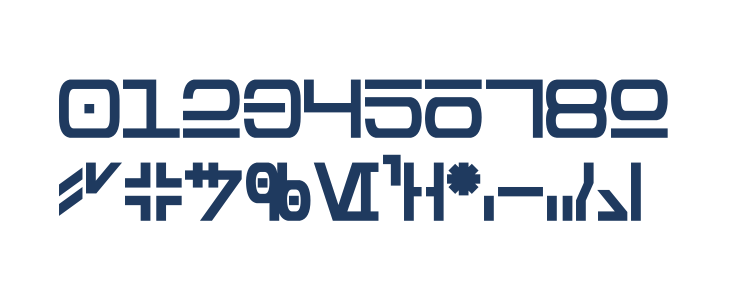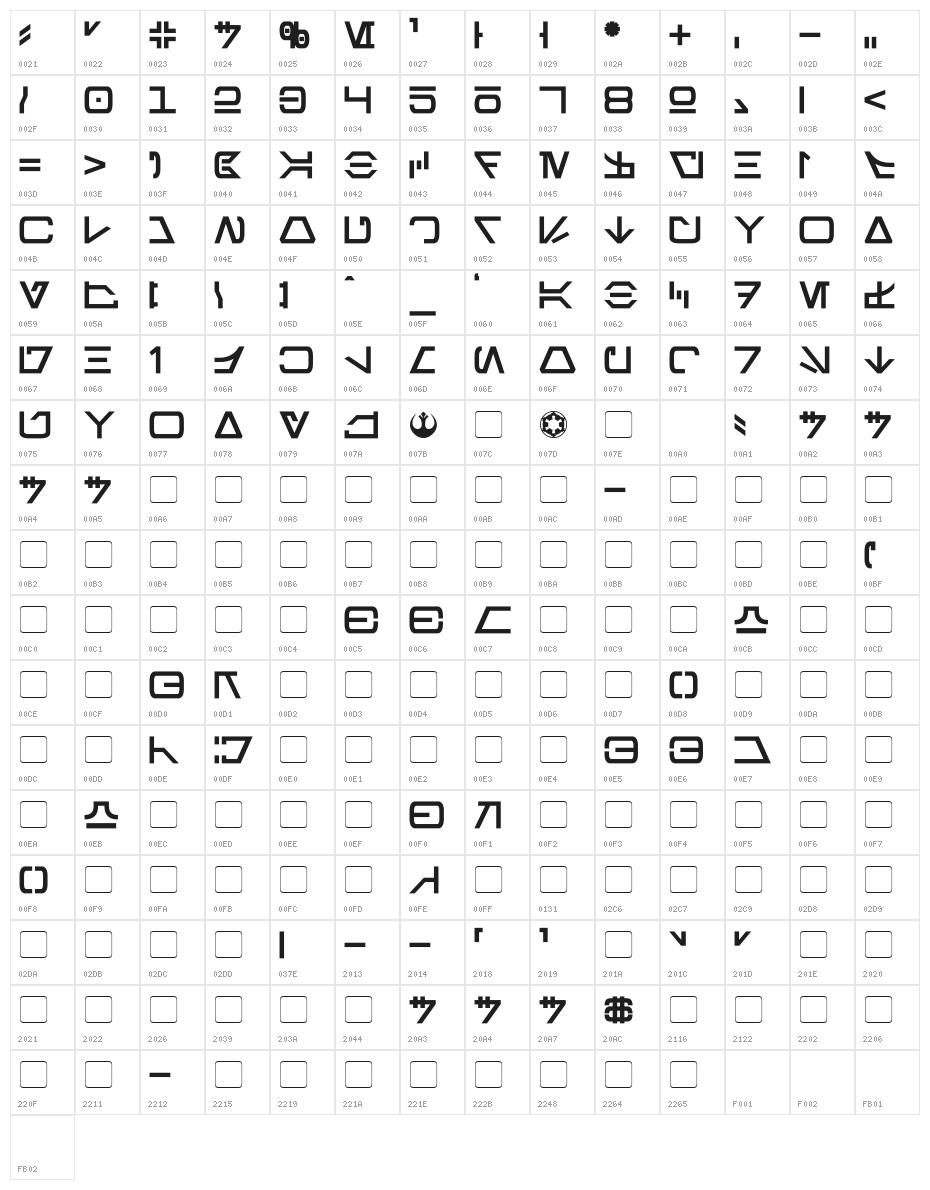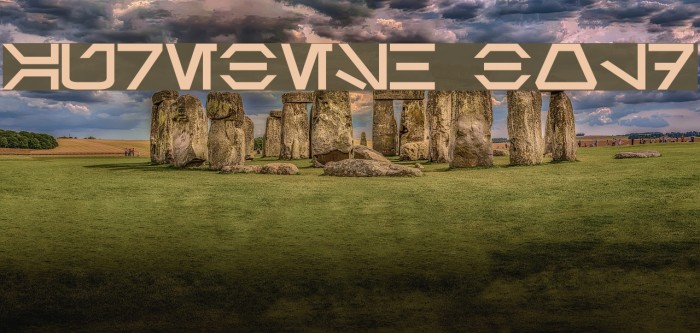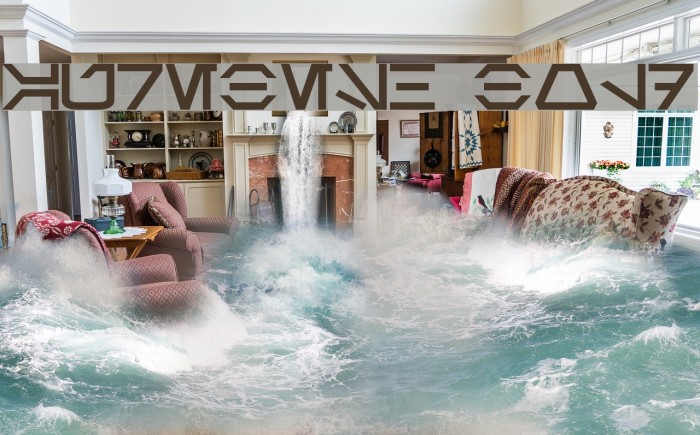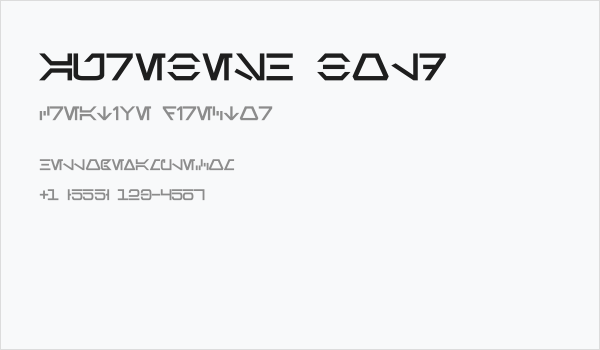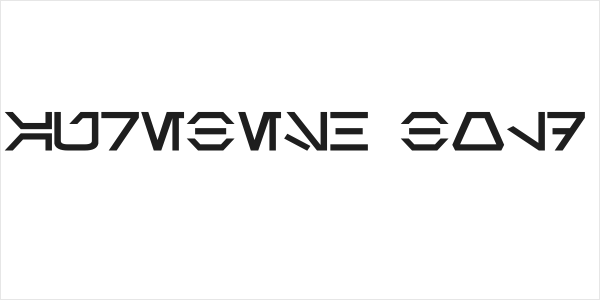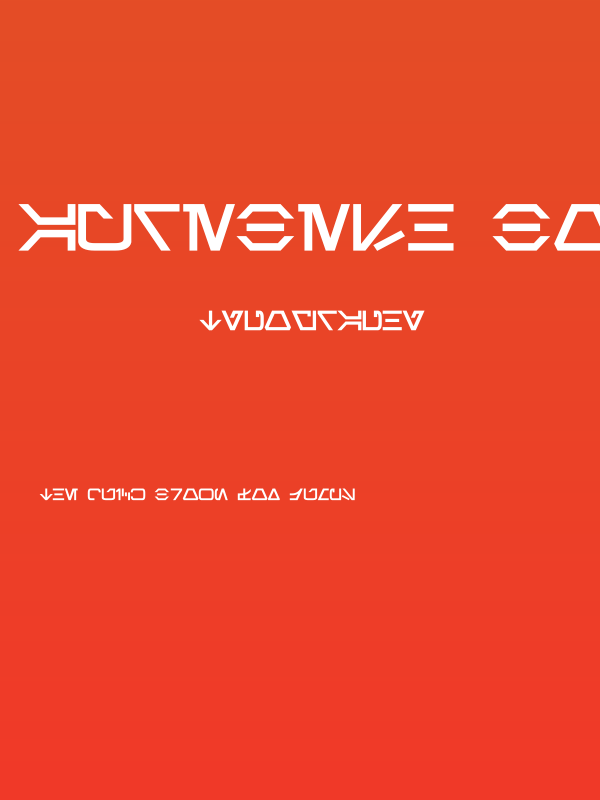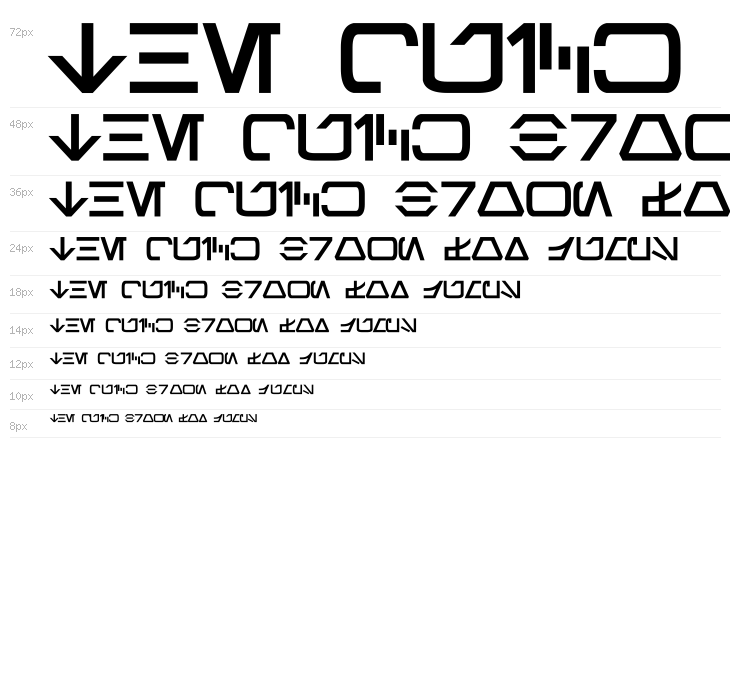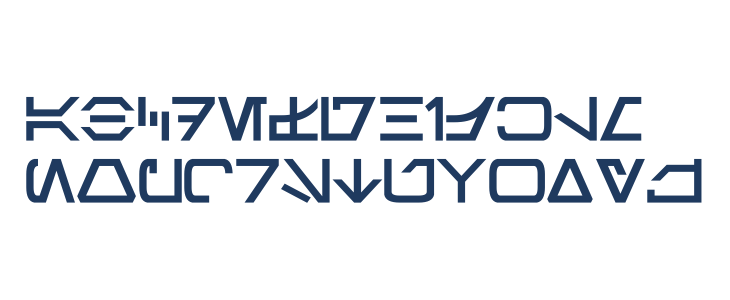
Aurebesh Bold Font
Aurebesh Bold Description
This font features a bold, futuristic design with angular and geometric shapes. Each character is crafted with a unique, stylized appearance that resembles a fictional or alien script. The letters and numbers are distinct, with sharp edges and a consistent thickness throughout. The special characters maintain the same bold and angular style, adding to the overall cohesive look. The font's design is reminiscent of science fiction themes, making it ideal for creative and imaginative projects.
| Use Case | Headlines, Logos, Creative design |
| Proposed Projects | Ideal for science fiction themed projects, video game interfaces, movie posters, and creative design work that requires a unique and futuristic aesthetic. |